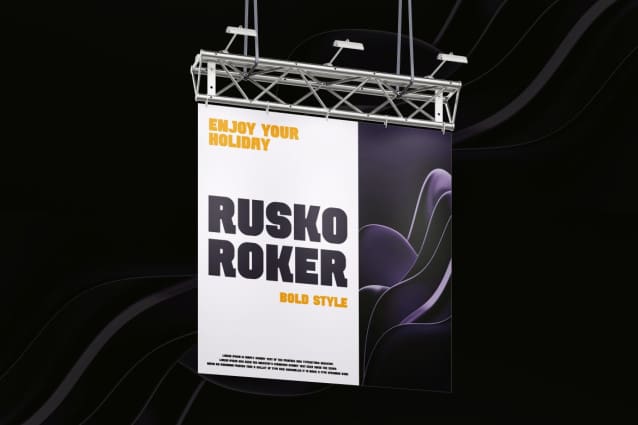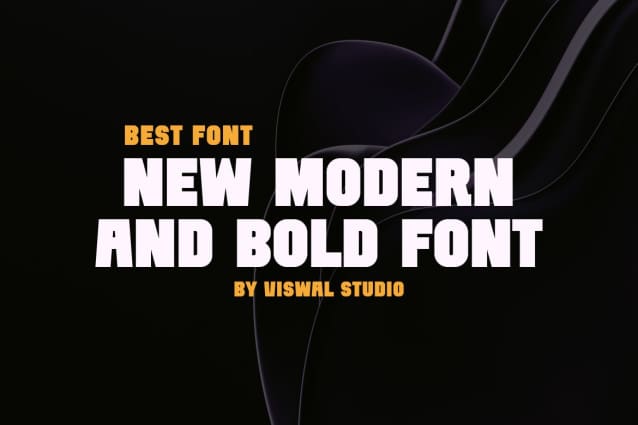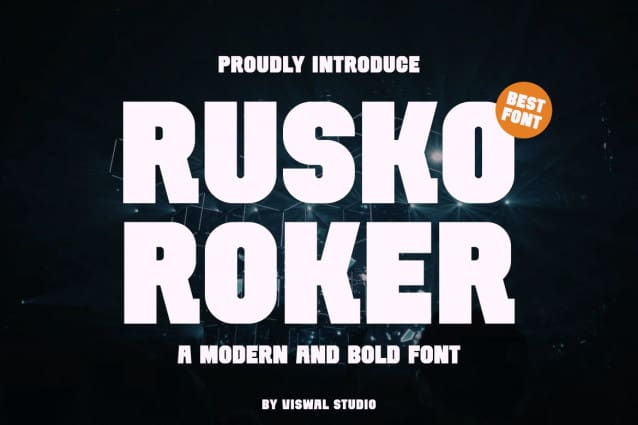
Rusko Roker Font
Rusko Roker Font – The font is suitable for badges, labels, logos, brands, magazines, posters, etc. Our fonts feature upper and lower case, numbers and punctuation, multilingual support and OpenType features. For amazing designs, you can mix them with other fonts as a complement.